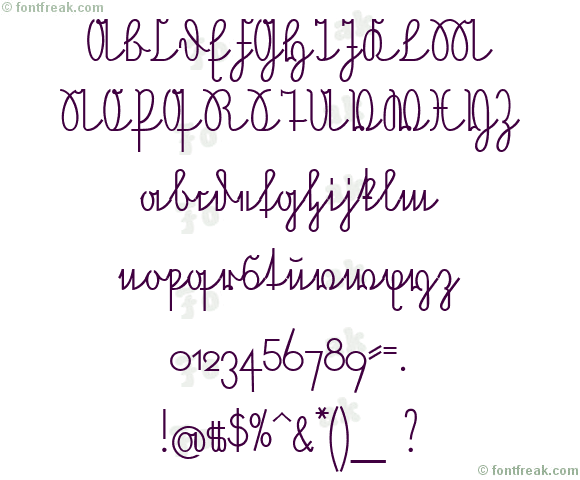
NeueRudelskopfVerbunden-Italic
About NeueRudelskopfVerbunden-Italic
NeueRudelskopfVerbunden-Italic is a captivating script font designed by Peter Wiegel, falling under the category of decorative typefaces. This unique font exhibits a fluid, cursive style that captures the eye with its elegant and dynamic strokes. The letters are characterized by a moderate stroke weight and a gentle contrast, providing an inviting yet sophisticated appearance. The spacing is well-balanced, allowing for smooth readability while maintaining an artistic flair. The decorative elements, such as the graceful loops and swirls, enhance its charm, making it a perfect choice for various design applications.
This font is particularly well-suited for wedding invitations, where its romantic script can convey the elegance and joy of the occasion. It also shines in printed materials like restaurant menus, adding a touch of sophistication that complements gourmet cuisine. Additionally, NeueRudelskopfVerbunden-Italic works beautifully in greeting cards and personal stationery, offering a personal touch that resonates with recipients. Graphic designers and small business owners will find this font advantageous for branding and promotional materials, as it communicates creativity and warmth.
What truly sets NeueRudelskopfVerbunden-Italic apart is its perfect balance of elegance and readability, making it a versatile choice for a variety of applications. Whether used in formal invitations or casual notes, this font adds a distinctive touch that captures the essence of artistic expression.